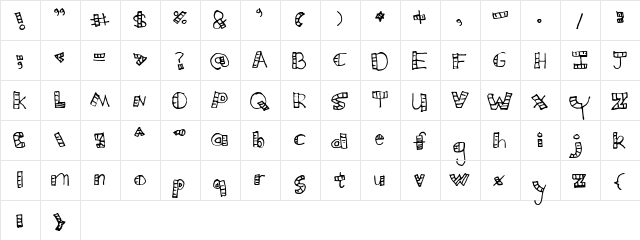
Abbys_candycane regular
Design Context for Abbys_candycane Typeface
Abbys_candycane is a composed and adaptable typeface that performs quietly and consistently across a wide range of design contexts.